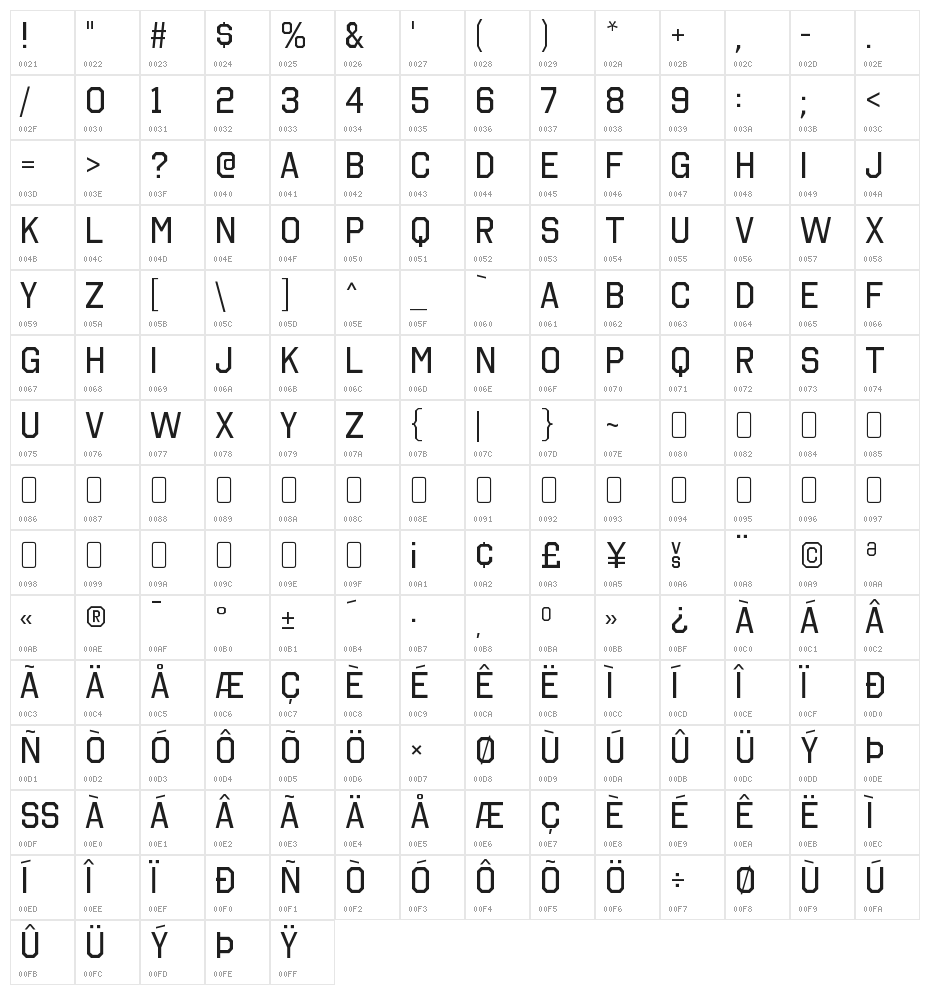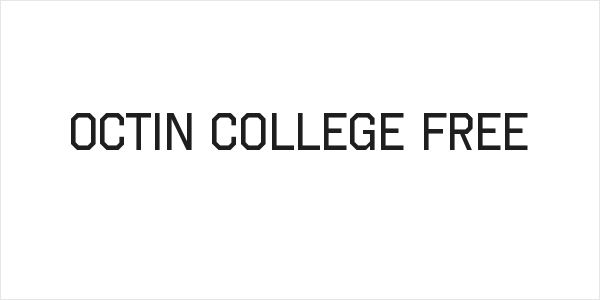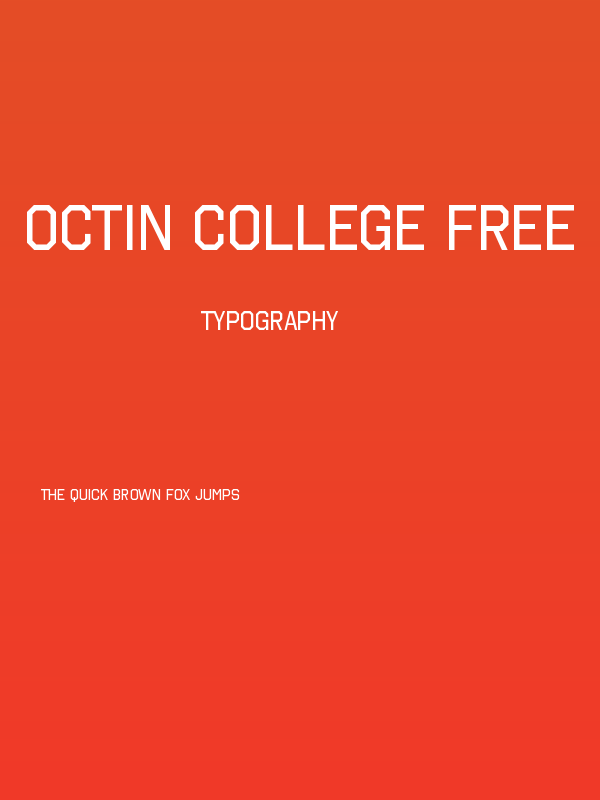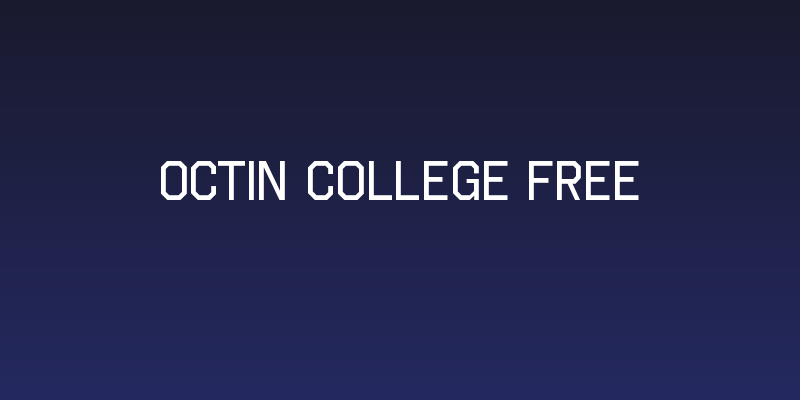
Octin College Free Font
Octin College Free Description
This font features a bold, geometric style with a strong presence. The characters are constructed with thick, uniform strokes, giving them a robust and impactful appearance. The angular design and straight lines create a sense of precision and modernity. The uppercase and lowercase letters maintain a consistent height, contributing to a cohesive look. Numbers and special characters are designed with the same boldness, ensuring readability and uniformity across all elements. This font's distinct style makes it suitable for projects that require a strong visual impact.
| Proposed Projects | Ideal for sports branding, posters, headlines, and any design requiring a bold statement. |